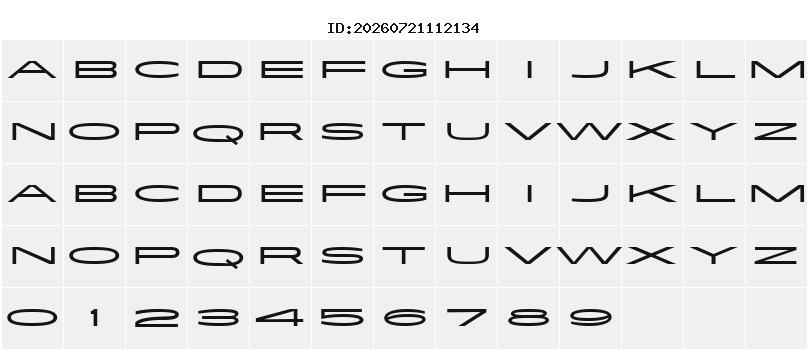
FlatironITC TT Preview
About FlatironITC TT.ttf
FlatironITC TT.ttf is a modern, elegant sans-serif font designed for ultimate readability and visual harmony. Perfect for branding, headlines, web design, and print materials.